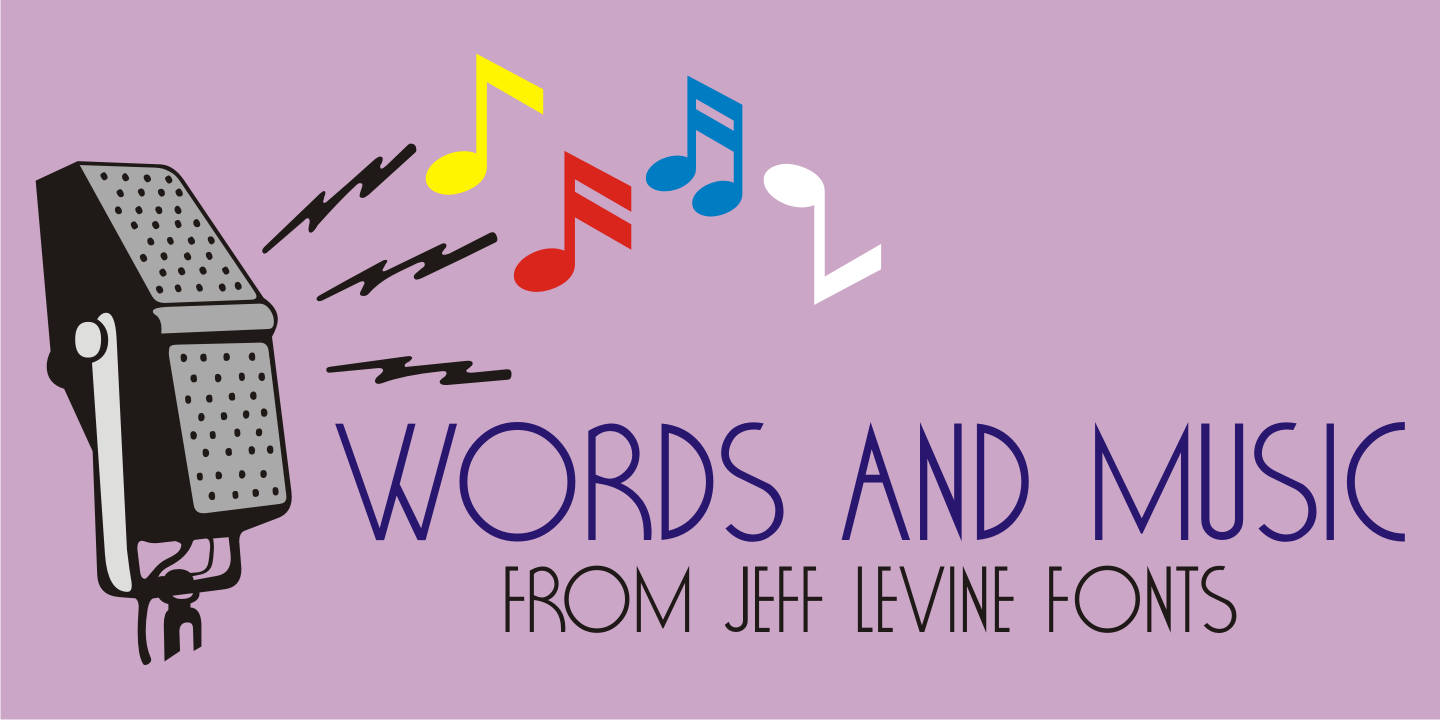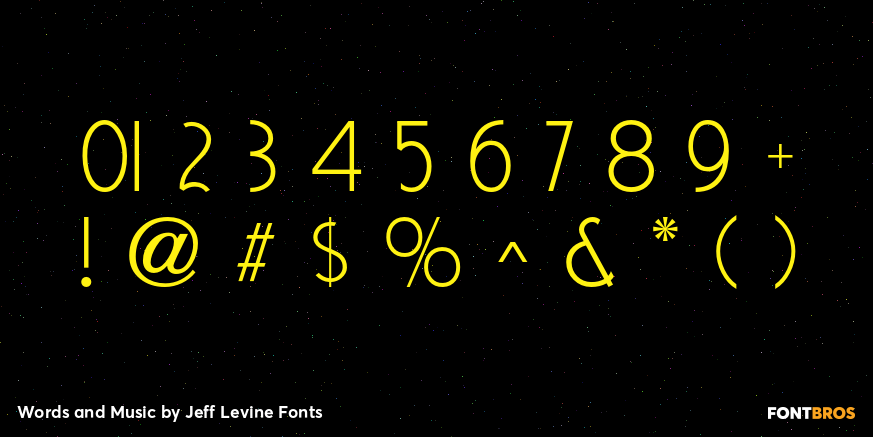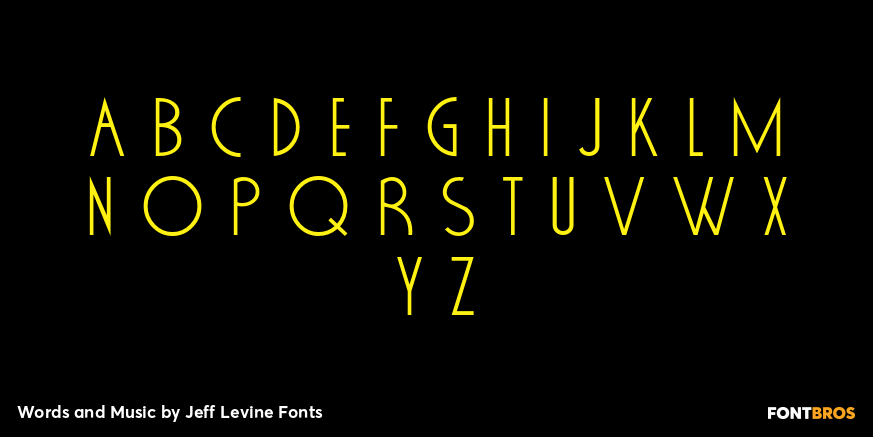
Words and Music
The 1934 sheet music for 'I'll String Along with You' from the Dick Powell-Ginger Rogers musical '20 Million Sweethearts' yielded the charming Deco monoline design for Words and Music JNL.